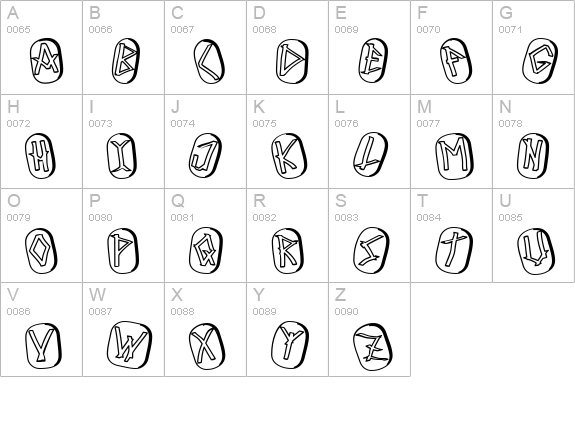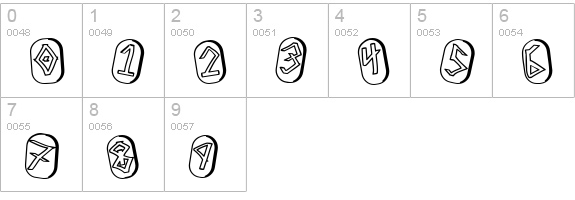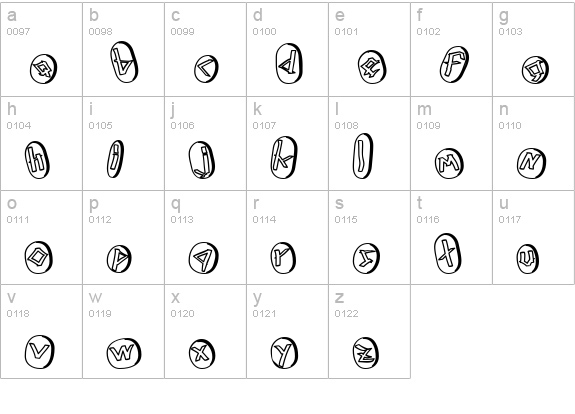
Runez of Omega Two Font Details
Runez of Omega Two font is a captivating display typeface that exudes a perfect blend of elegance and modernity. Its intricate design features unique rune-like symbols that give it a mysterious and mystical vibe. This font is perfect for projects that require a touch of ancient wisdom combined with a contemporary twist. What makes Runez of Omega Two font even more appealing is that it is available for free download at FontsMarket.com. This means that you can easily access this stunning typeface and use it in your designs without any cost involved. Don't miss out on the opportunity to elevate your projects with the mesmerizing charm of Runez of Omega Two font. Download it now and let your creativity soar to new heights.